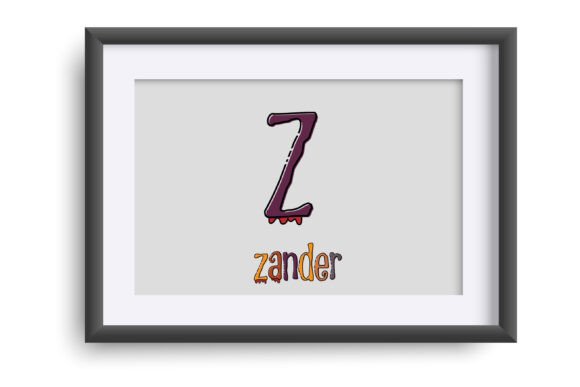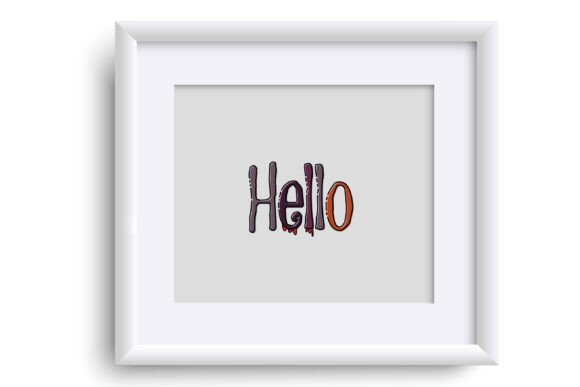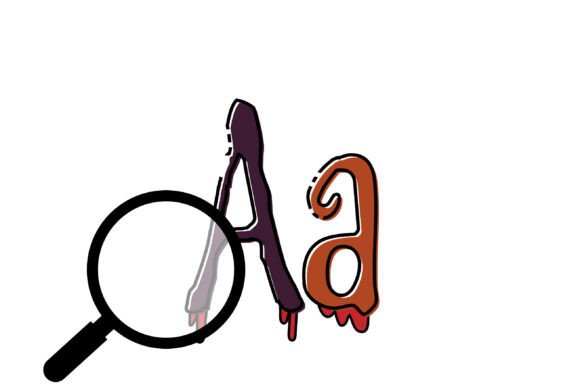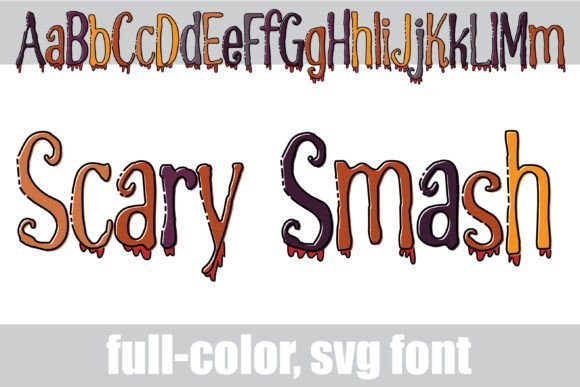
Introduction to Scary Smash Font
This full-color font features an outlined font in a Halloween color palette with drippy blood.
There is an alt version you can access through your system’s character map that contains additional colors of all the letters This font works best for titles, displays, posters and more.
Scary Smash Font offers exceptional quality and versatility, making it a valuable addition to your design toolkit. Whether you’re creating for personal projects or commercial use, Scary Smash Font delivers professional results.